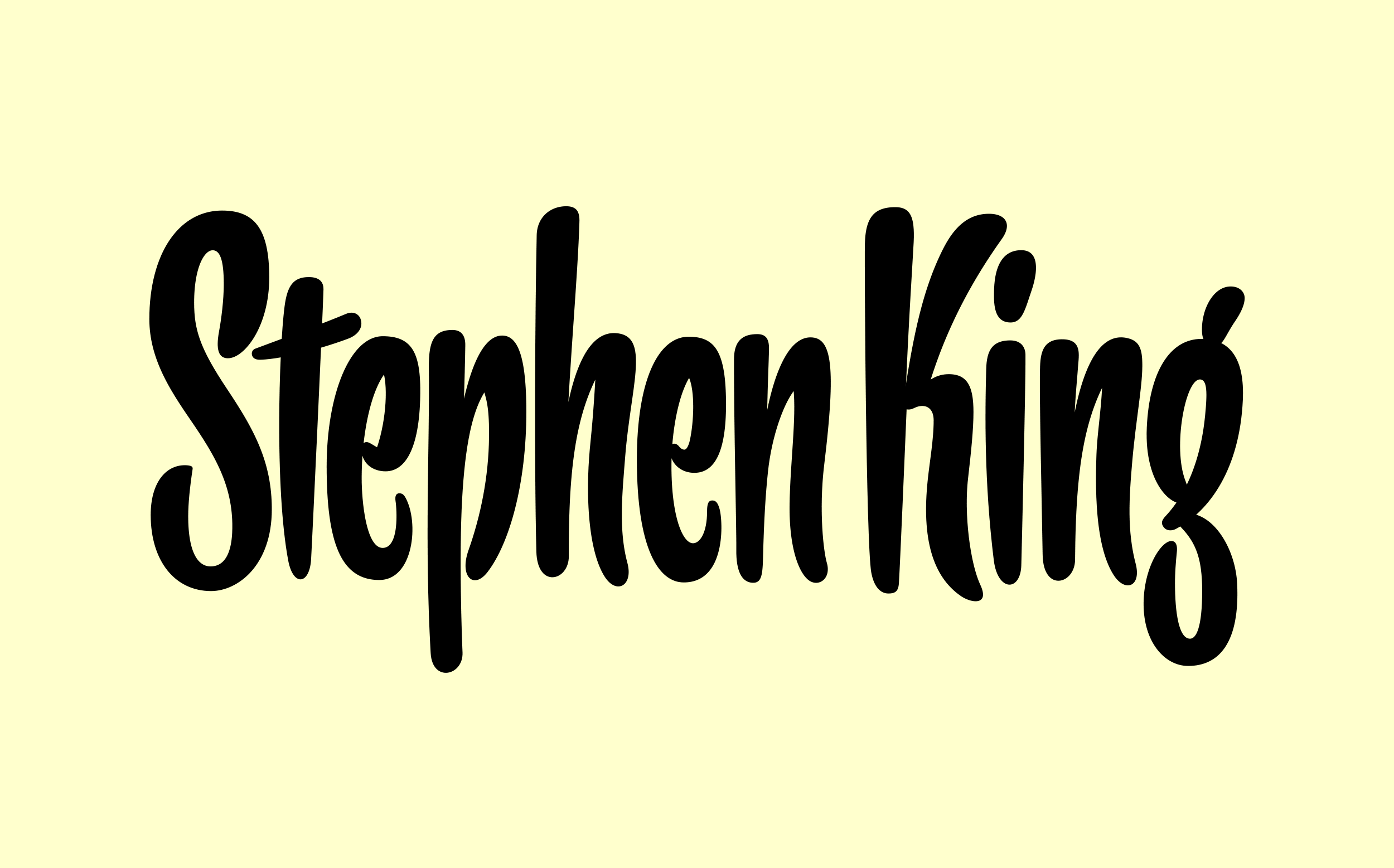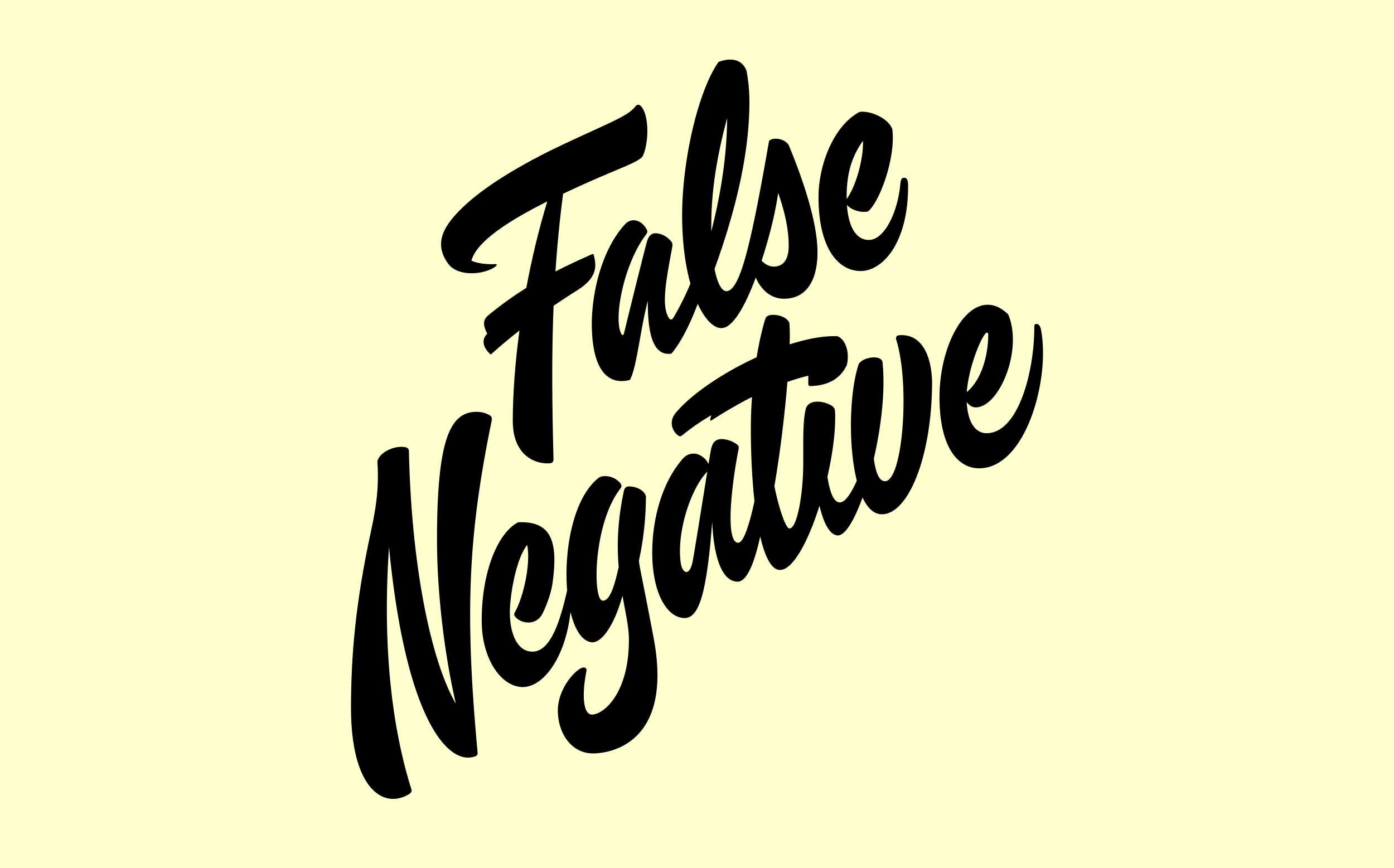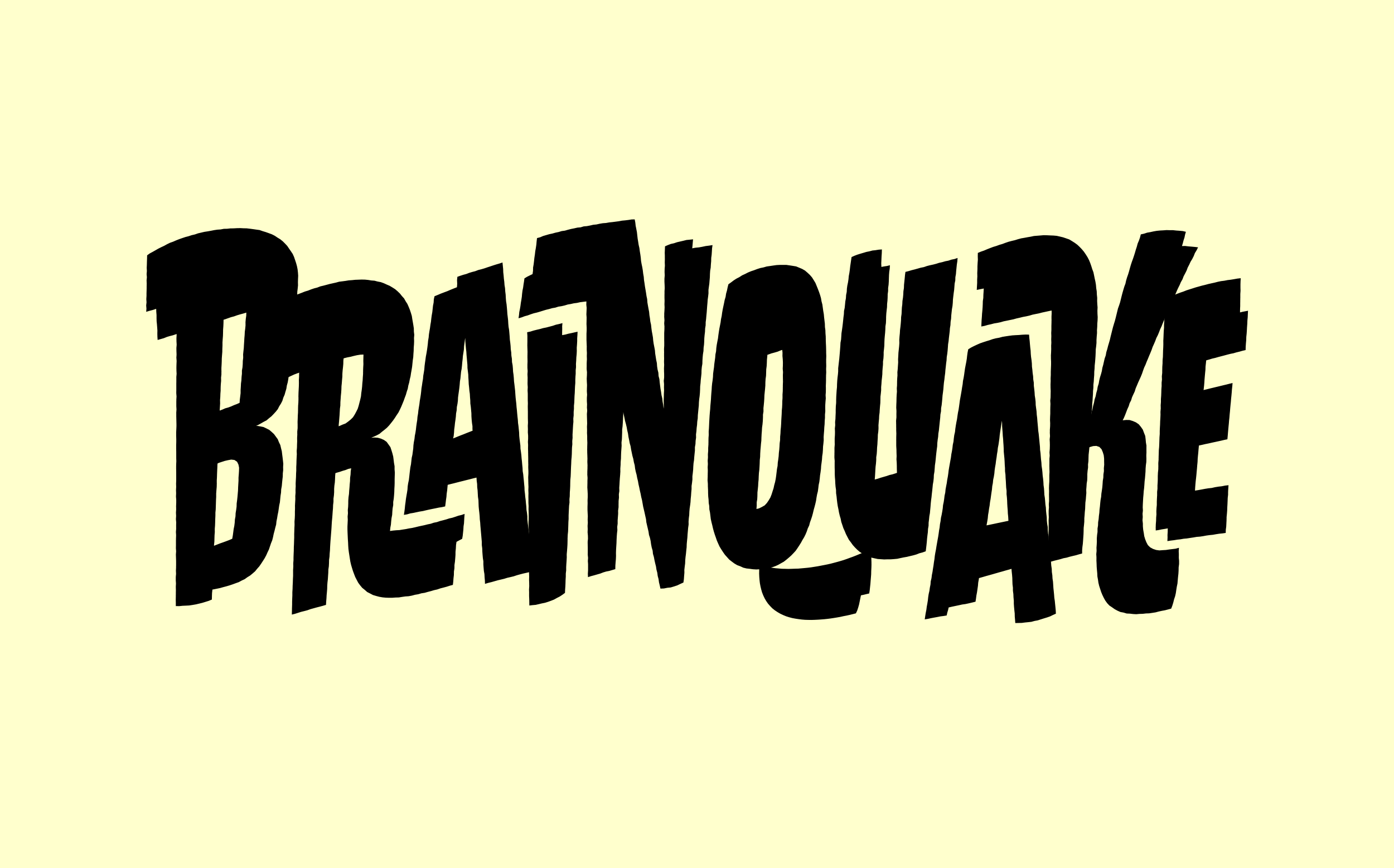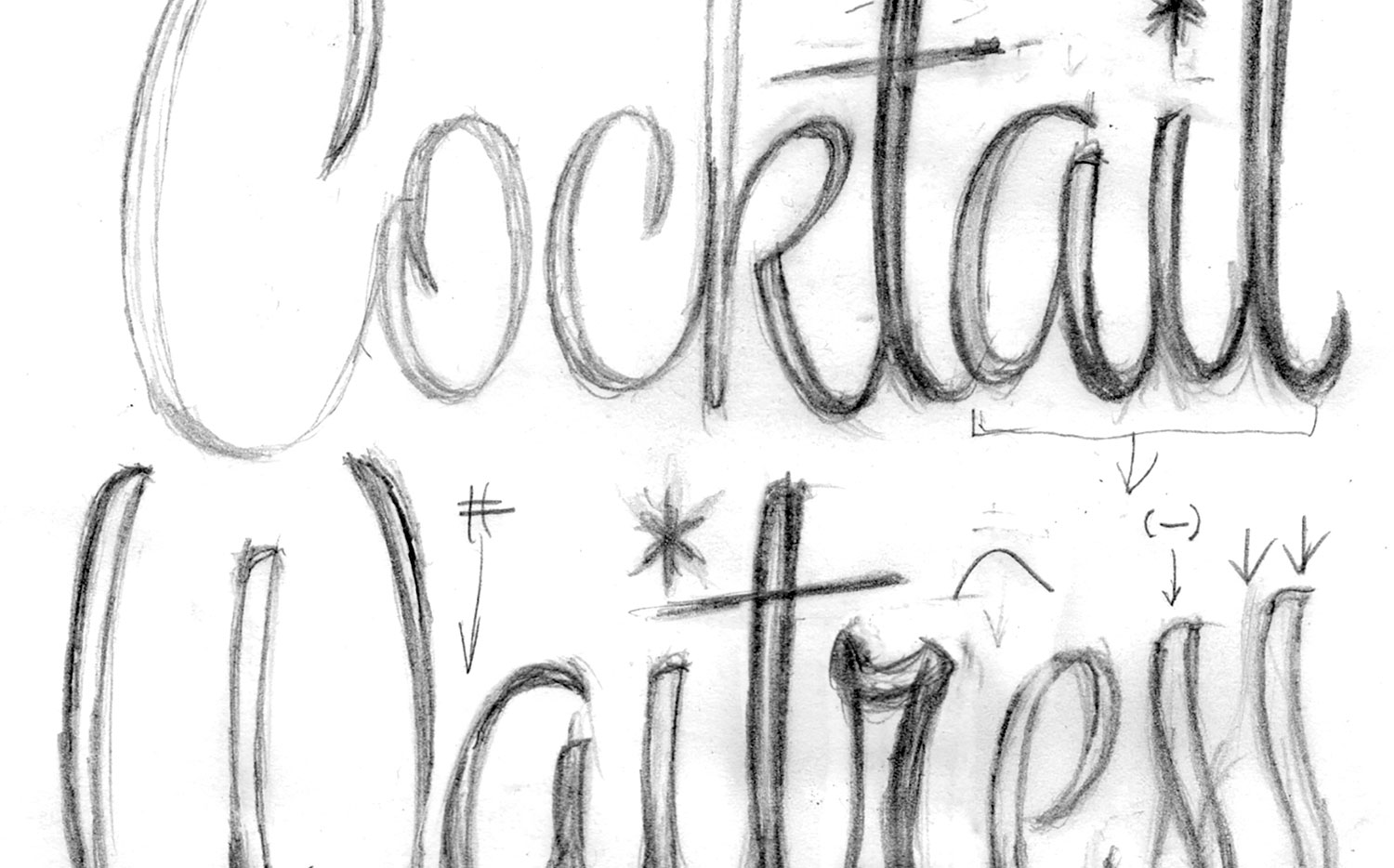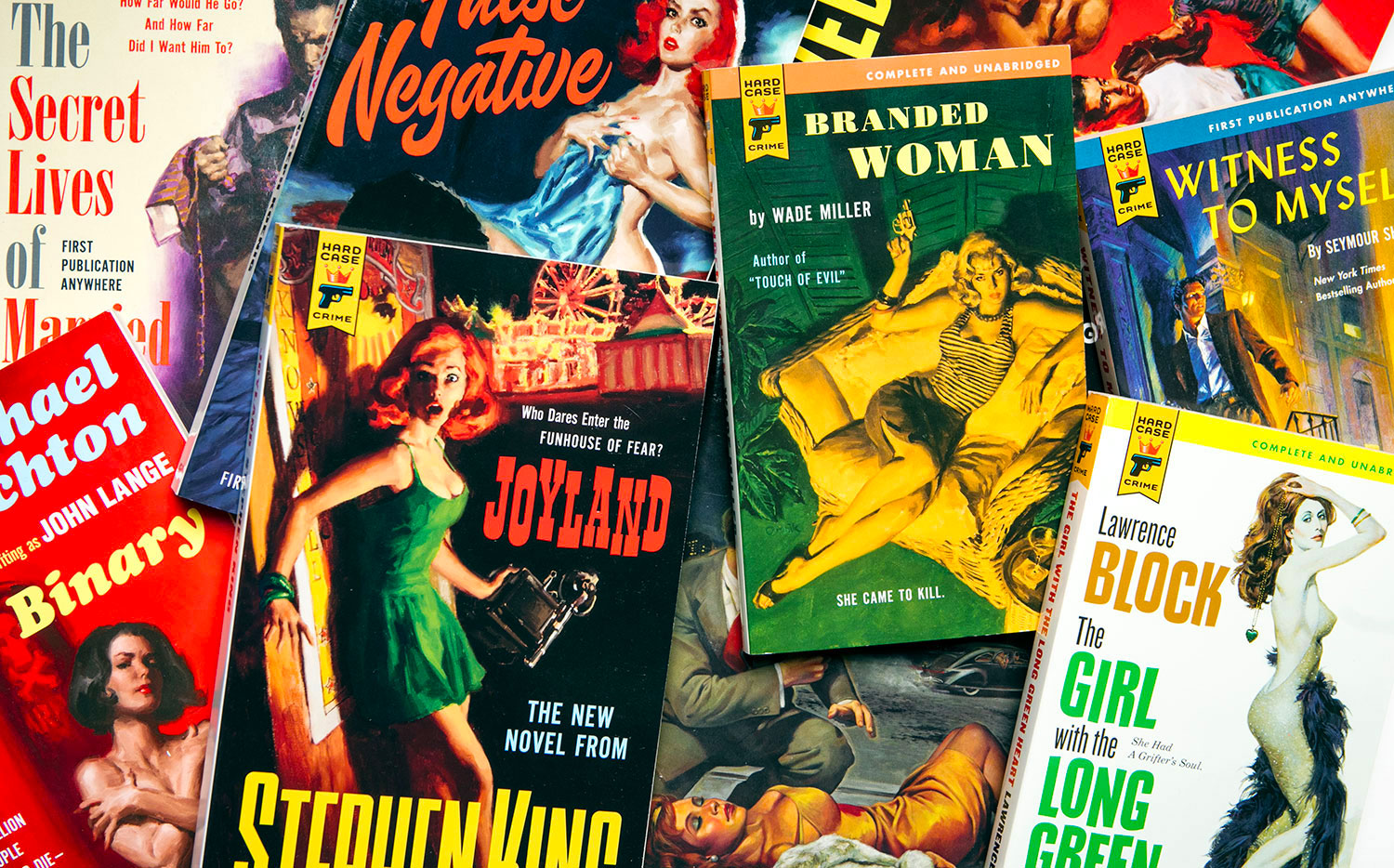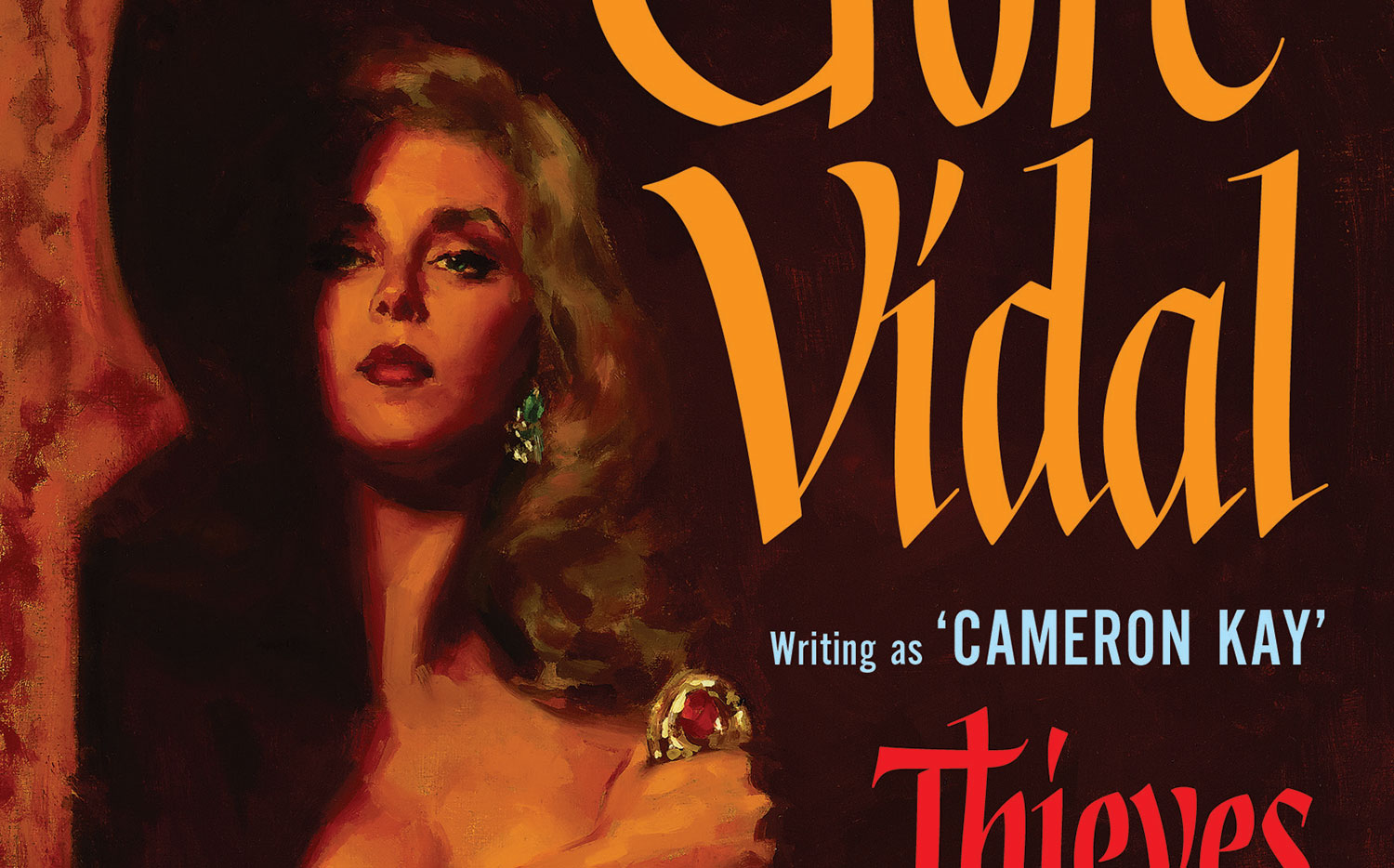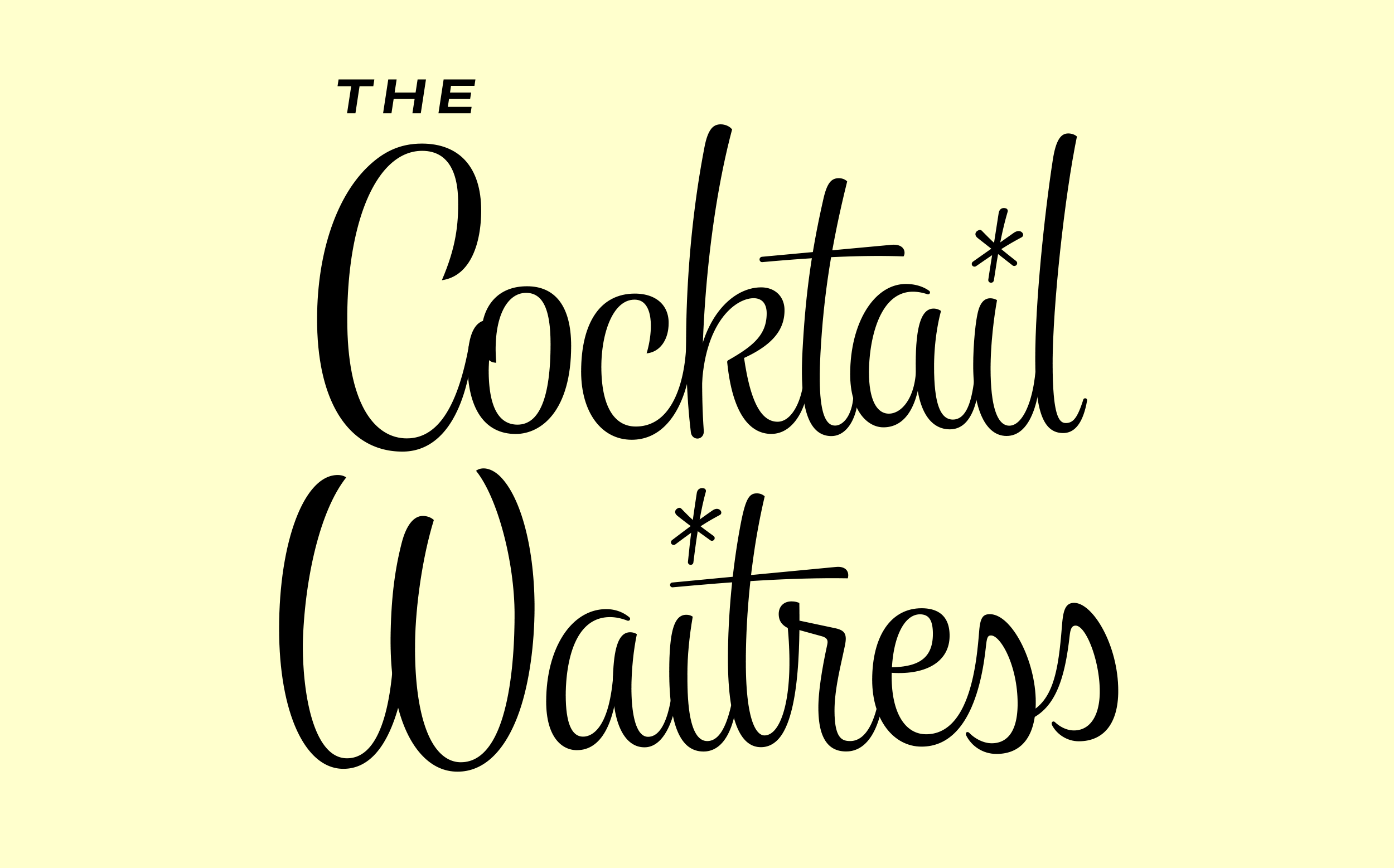
Hard Case
In 2004, we co-founded a small paperback imprint called Hard Case Crime, dedicated to publishing (and republishing) hard-boiled American fiction in the style of vintage paperback originals. Over the last two decades, our list has grown to include lost books by Gore Vidal, James M. Cain, Ray Bradbury, Ed McBain, Joyce Carol Oates, Harlan Ellison, Cornell Woolrich, Erle Stanley Gardner, Michael Crichton, Pete Hamill, Robert Silverberg, Mickey Spillane, Robert Bloch, Lawrence Block, Arthur Conan Doyle (writing as ‘A. C. Doyle’), Brian de Palma, Robert B. Parker, Rex Stout, Donald E. Westlake, Roger Zelazny, and convicted Watergate conspirator E. Howard Hunt, who was a pretty good pulp novelist before he turned his hand to actual felonies. Stephen King liked the line enough to write three original novels for us (which is the only reason we’re sometimes in profit).
Our logo was designed with soft, wobbly outlines to mimic the look of a tenth-generation photostat. We use faces that were common in mid-century publishers’ art departments, de-kerned and respaced to match the rhythms of hastily set metal type, and supplemented with hand-drawn lettering based on period models. The legendary Robert McGinnis, creator of the iconic images of James Bond and Holly Golightly, has been one of our most prolific contributors, returning to the field of illustration to provide over two dozen original cover paintings. Branding, art direction, and book design by Signal.